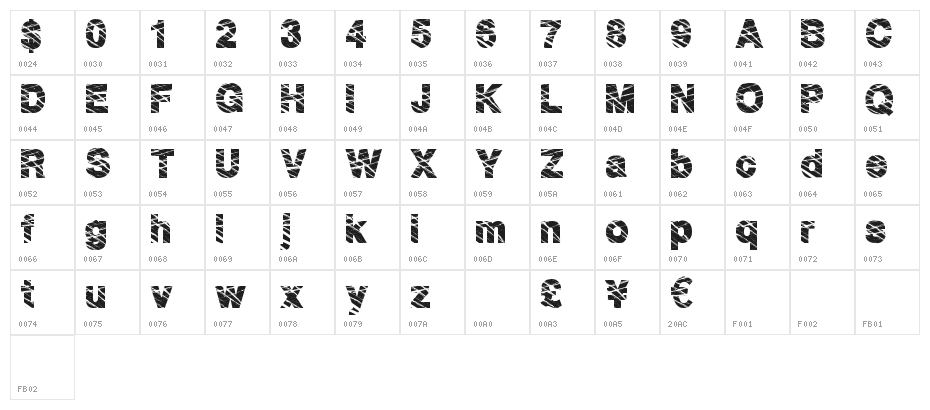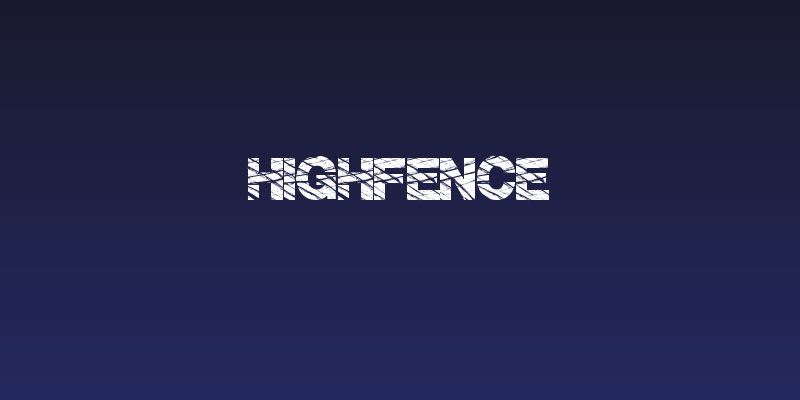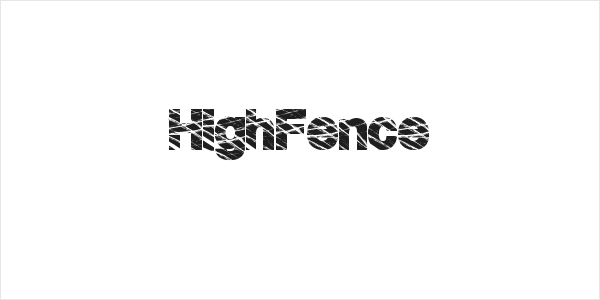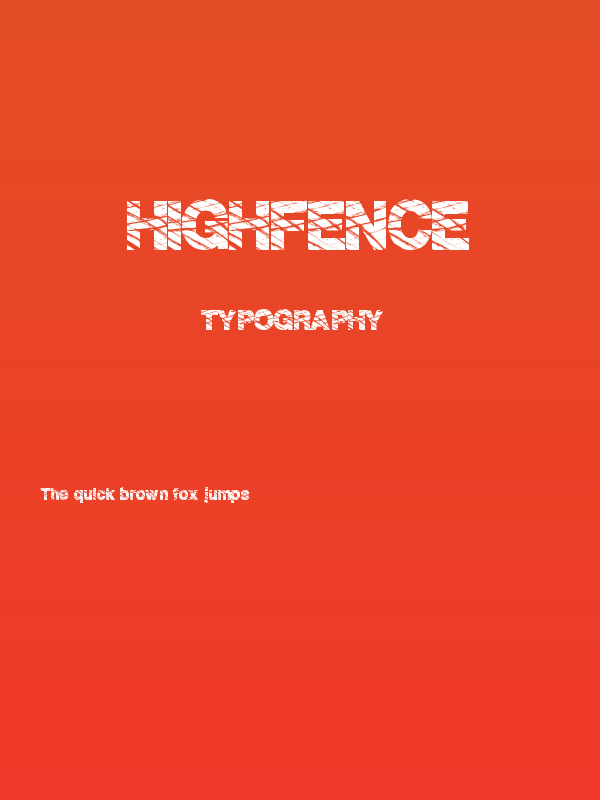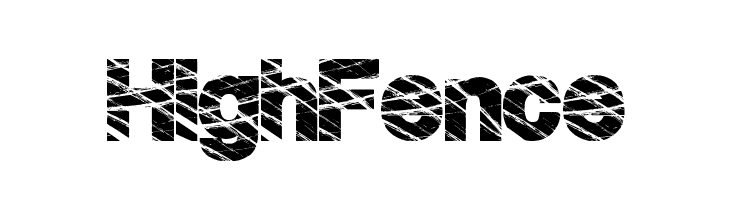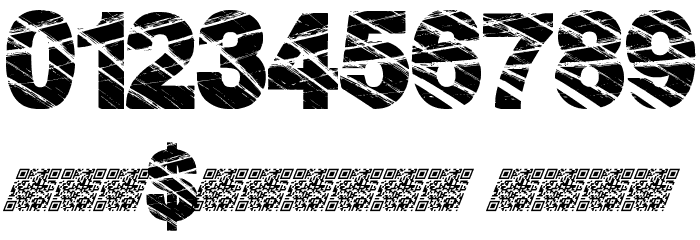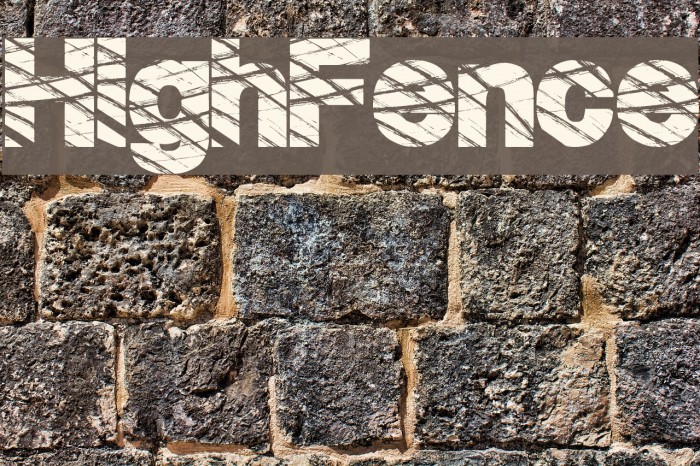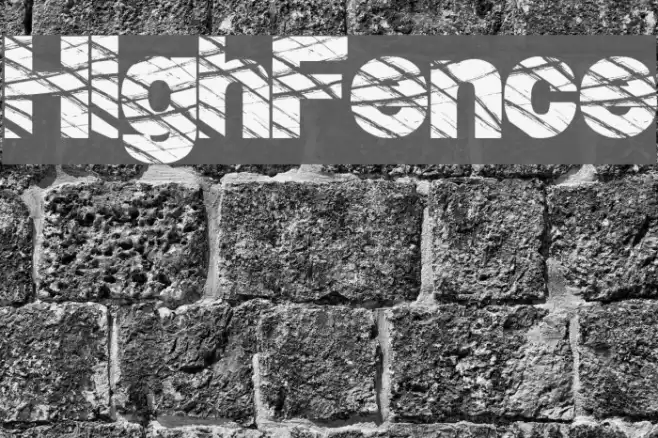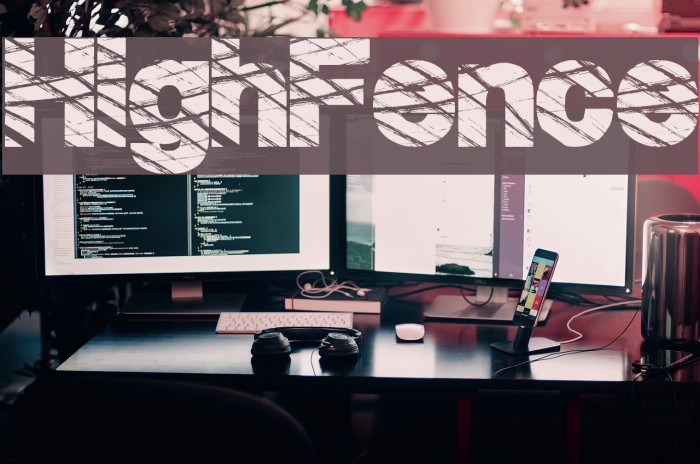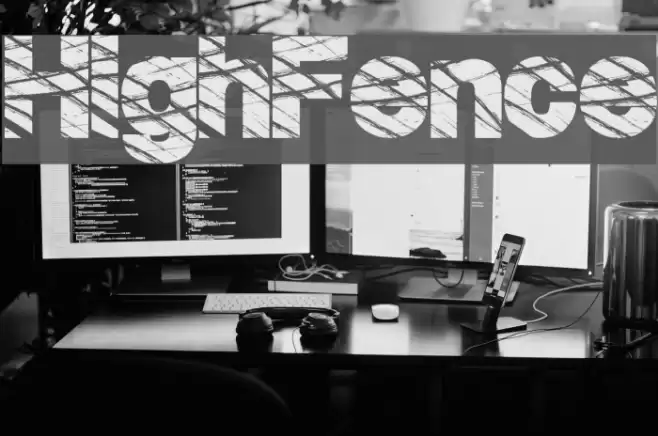
HighFence Font
✎ Distorted Eroded
| Kategorien | Distorted Eroded |
| Gesamtstil | Modern, Industrial |
| Vorgeschlagene Projekte | Ideal for urban-themed designs, posters, album covers, and branding that requires a gritty, industrial look. |